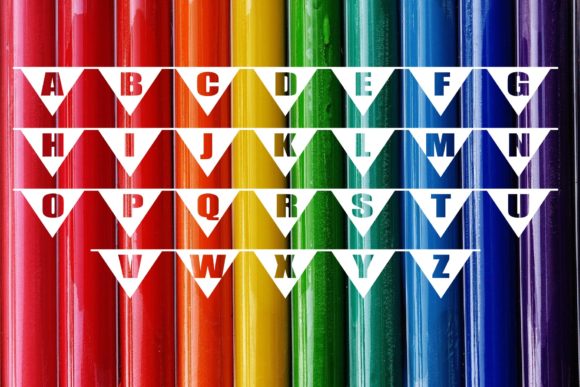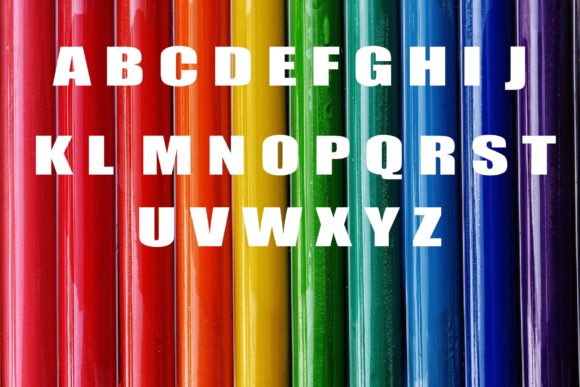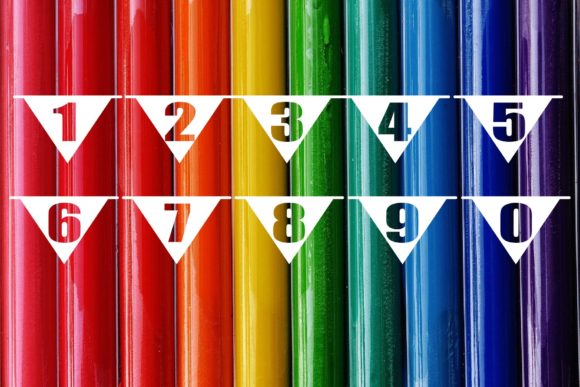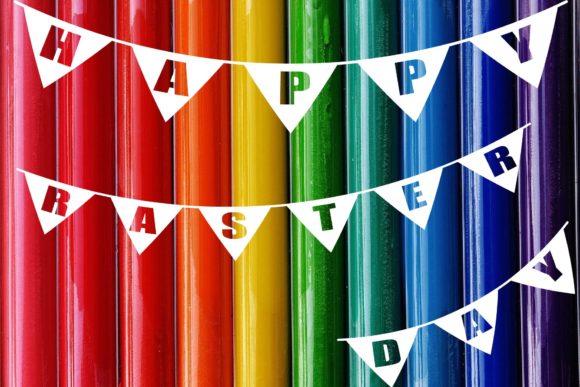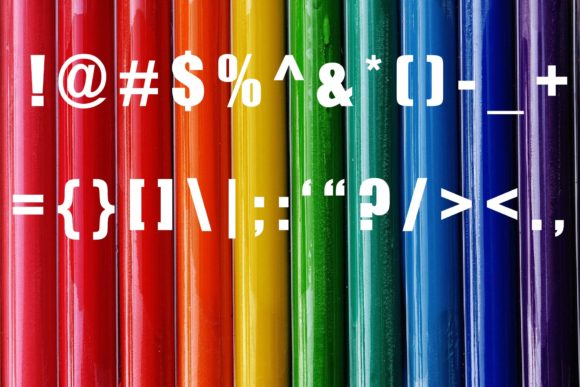
Introducing Decor Flag Font: Add a Personalized Touch to Your Festive Projects
Are you looking for a unique display font to give your festive projects a personalized look? Look no further than Decor Flag Font! This stunning font is specifically designed to add a touch of elegance and sophistication to any celebration, making it perfect for crafters, designers, and DIY enthusiasts.
What is Decor Flag Font?
Decor Flag Font is a one-of-a-kind display font that boasts a distinctive and eye-catching design. Its unique style is reminiscent of decorative flags, making it an ideal choice for festive projects such as party invitations, holiday cards, and DIY decorations.
Key Features of Decor Flag Font
• Unique Design: Decor Flag Font features a distinctive design that sets it apart from other fonts. Its flag-inspired style adds a touch of whimsy and fun to any project.
• Personalized Look: With Decor Flag Font, you can add a personalized touch to your festive projects. The font’s unique design makes it perfect for customizing party invitations, holiday cards, and other celebratory materials.
• Versatile: Decor Flag Font is versatile and can be used for a wide range of festive projects, including birthday parties, weddings, holidays, and more.
• Easily Readable: Despite its unique design, Decor Flag Font is easily readable, making it perfect for both digital and print applications.
Why Choose Decor Flag Font?
There are many reasons why Decor Flag Font is the perfect choice for your festive projects. Here are just a few:
• Adds a Personal Touch: With Decor Flag Font, you can add a personal touch to your festive projects, making them truly unique and special.
• Stand Out from the Crowd: The font’s unique design ensures that your projects will stand out from the crowd, making them more noticeable and attention-grabbing.
• High-Quality: The font is of high quality, ensuring that it will look great in both digital and print applications.
Tips and Tricks for Using Decor Flag Font
Here are a few tips and tricks to help you get the most out of Decor Flag Font:
• Use it Sparingly: While Decor Flag Font is stunning, it’s best to use it sparingly to avoid overwhelming the reader.
• Pair it with Other Fonts: Consider pairing Decor Flag Font with other fonts to create a unique and visually appealing design.
• Experiment with Colors: Don’t be afraid to experiment with different colors to find the perfect combination for your project.
Decor Flag Font is a unique and versatile display font that’s perfect for adding a personalized touch to your festive projects. With its distinctive design, ease of use, and high-quality output, it’s an excellent choice for crafters, designers, and DIY enthusiasts. Whether you’re creating party invitations, holiday cards, or DIY decorations, Decor Flag Font is sure to make your projects stand out from the crowd.